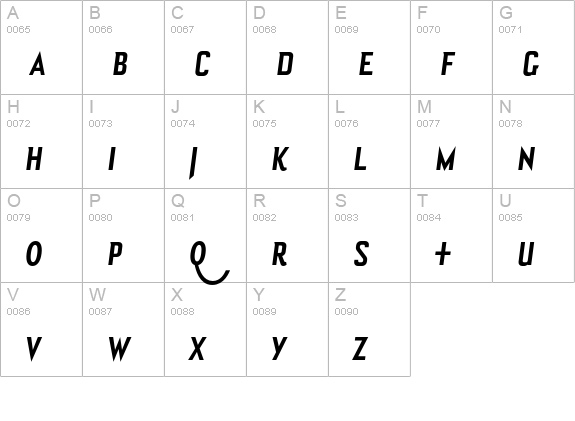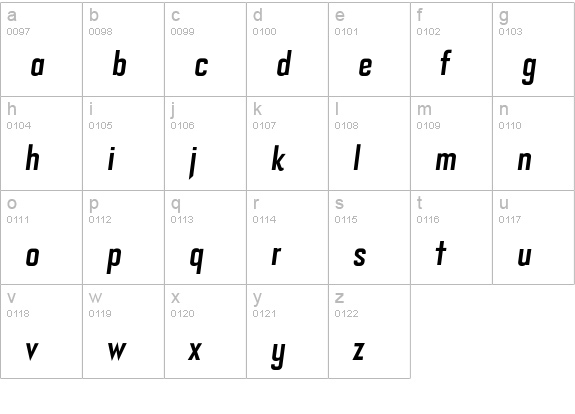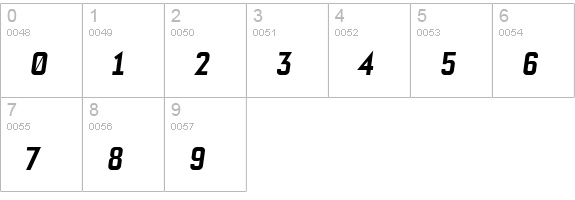
Bourgeois BoldCondItalAlt Font Details
Bourgeois BoldCondItalAlt is a sophisticated and versatile font that exudes elegance and modernity. With its sleek design and unique italicized alternative, this typeface is perfect for adding a touch of class to any project. The bold strokes and condensed shape give Bourgeois BoldCondItalAlt a strong presence, making it ideal for headlines, titles, and branding materials. What sets Bourgeois BoldCondItalAlt apart is its exquisite style, which effortlessly combines tradition with a contemporary flair. The striking curves and sharp angles of this font create a visual impact that commands attention and leaves a lasting impression. Whether used in print or digital media, Bourgeois BoldCondItalAlt is sure to elevate the overall aesthetic of any design. Best of all, Bourgeois BoldCondItalAlt is available for free download at FontsMarket.com. This means that you can easily access this stunning font and use it in your projects without any cost. Don't miss out on the opportunity to enhance your designs with the timeless beauty of Bourgeois BoldCondItalAlt - download it today and see the difference it can make!